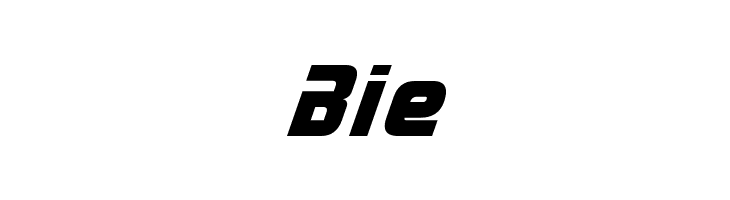
• Sternbach Oblique
A bold, oblique font with a futuristic and dynamic style.
• StickRice
• Sticks
• Still 6 but almost 7
• Stint Ultra Condensed
A highly condensed, clean, and organized font ideal for space-saving designs.
• StintUltraCondensed-Regular
A highly condensed and elegant font with tall, narrow letterforms and minimal contrast.
• STITCH FONT
A decorative font with a stitched, embroidered appearance.
• Stoke
A classic serif font with elegant strokes and moderate contrast, ideal for refined and sophisticated designs.
• Stoke Light
A classic serif font with elegant strokes and balanced structure.
• Stoke Regular
A classic serif typeface with elegant curves and moderate contrast.